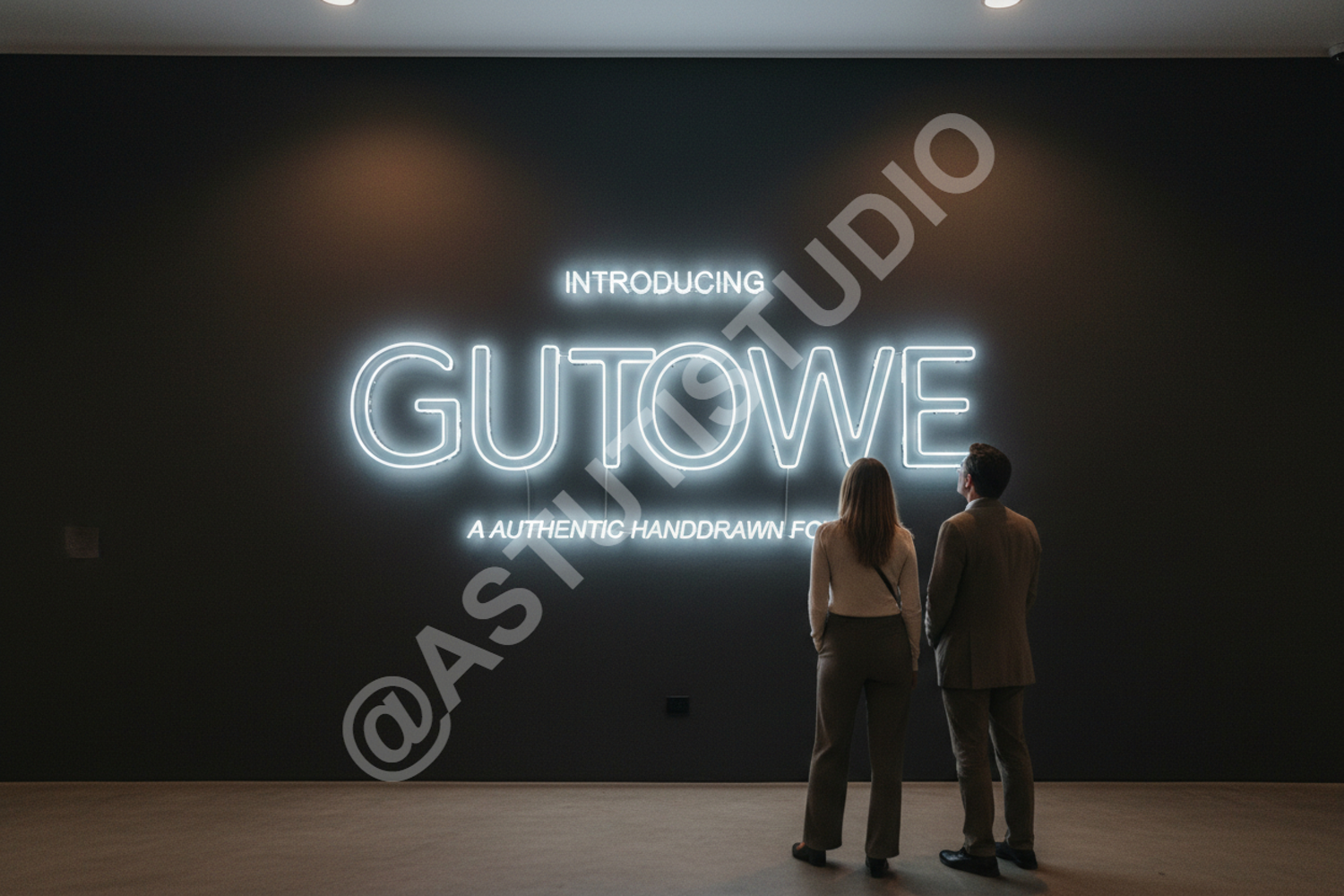
Gutowe - Elegant Modern Serif Display Font
Gutowe
Introducing Gutowe, a premium serif font meticulously crafted to bring a touch of timeless elegance and modern sophistication to your creative projects. Gutowe balances classic letterforms with contemporary aesthetics, making it a versatile choice for designers who demand high-quality typography. Whether you are working on a high-end fashion brand or a minimalist editorial layout, Gutowe provides the perfect typographic foundation to elevate your work.
- Full set of uppercase and lowercase letters
- Numerals and standard punctuation
- Extensive multilingual support for global reach
- Professional Branding and Corporate Identity
- Elegant Wedding Invitations and Event Stationery
- Luxury Product Packaging and Labeling
- Editorial Layouts and High-Fashion Magazine Headers
- Sophisticated Social Media Graphics and Inspirational Quotes
- Modern Logo Design and Watermarks